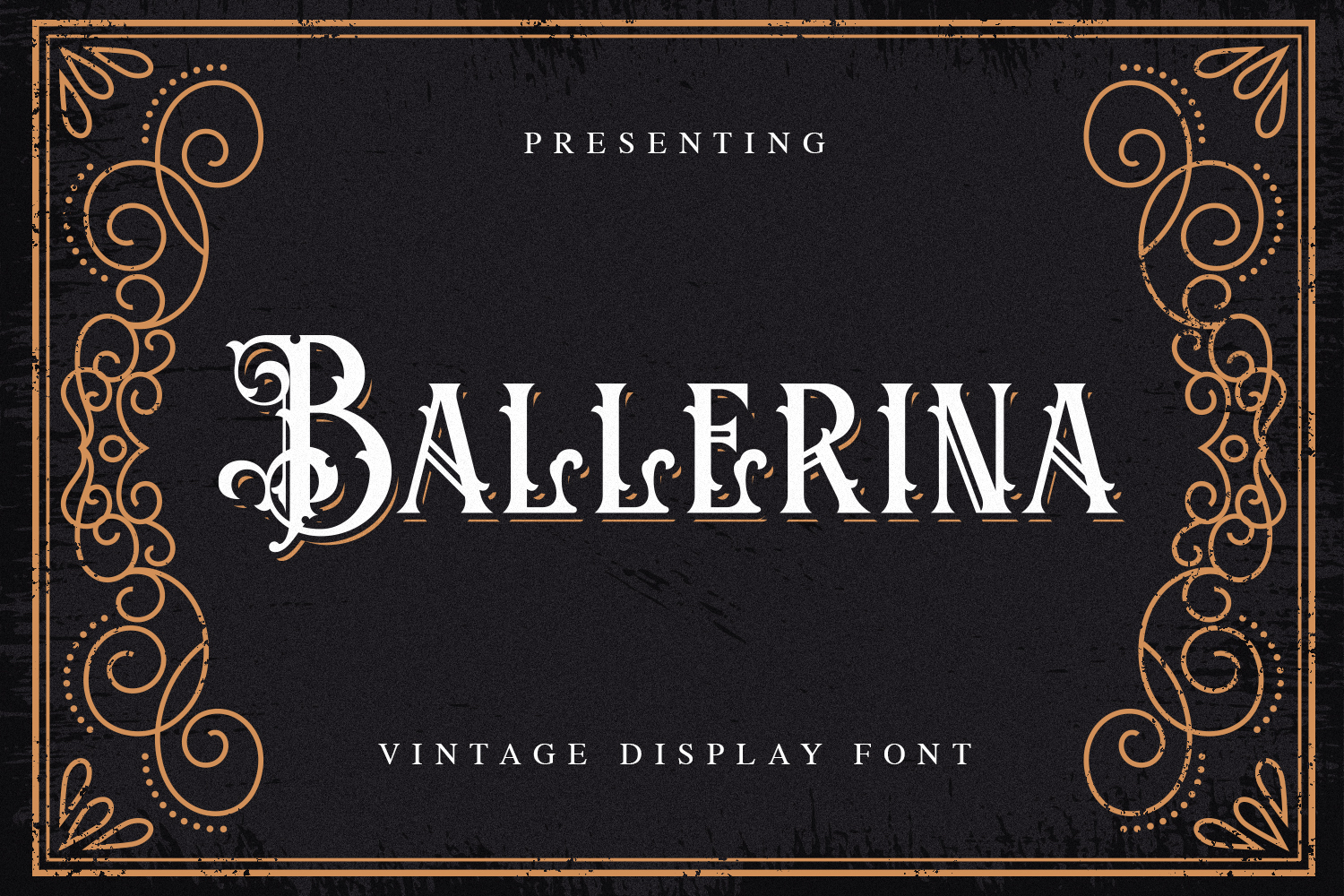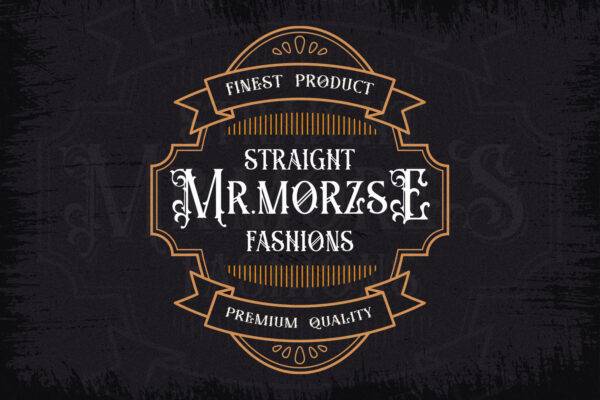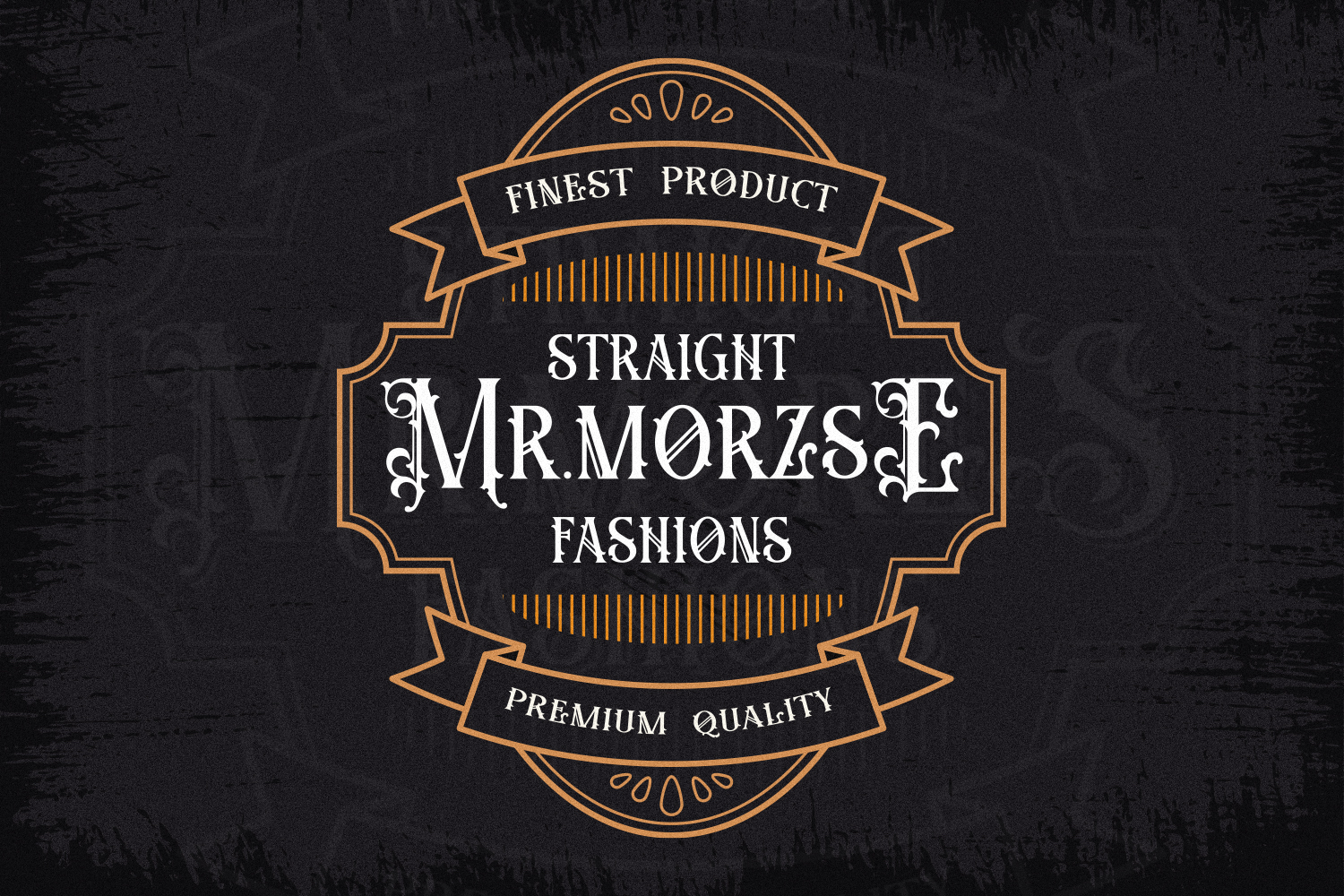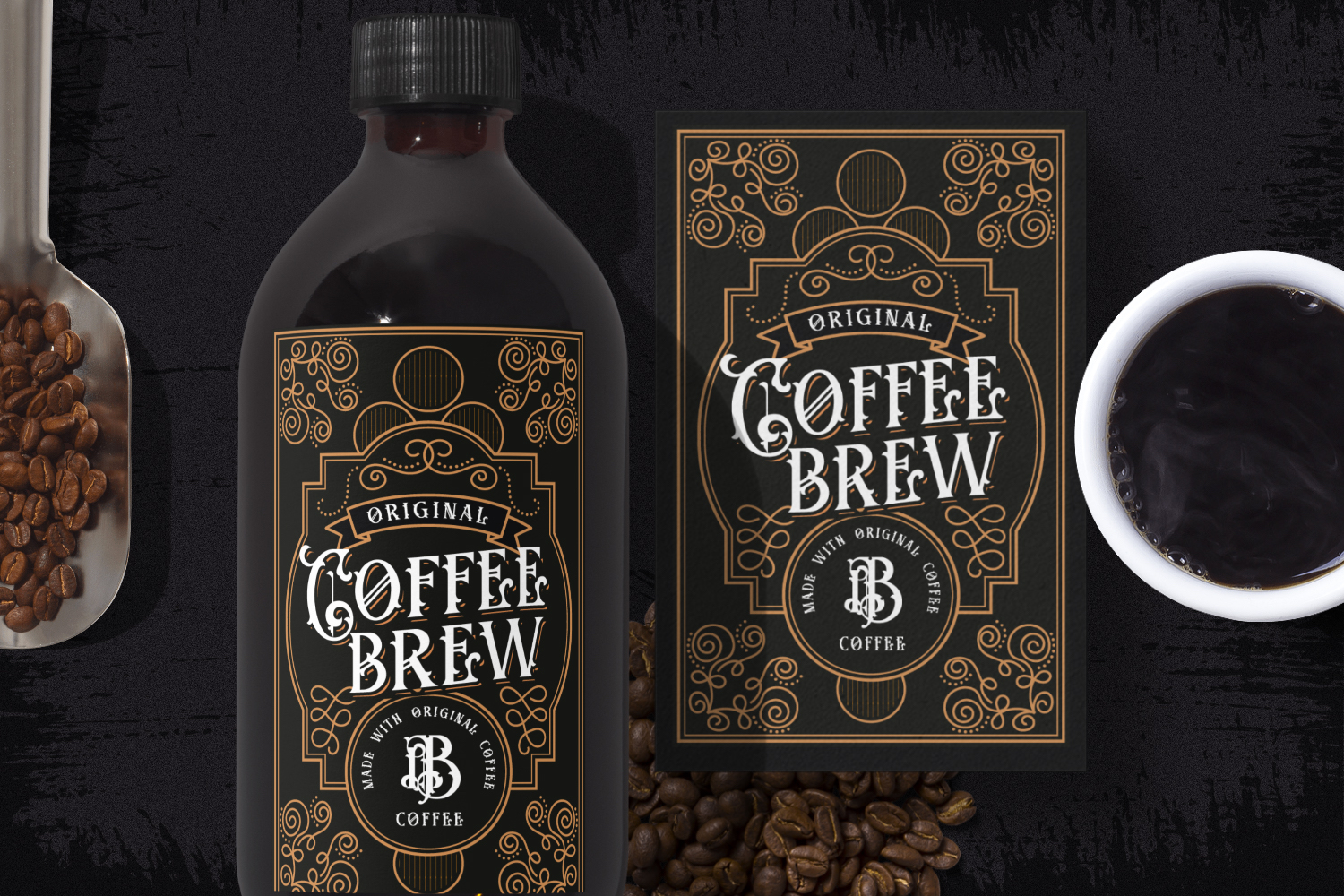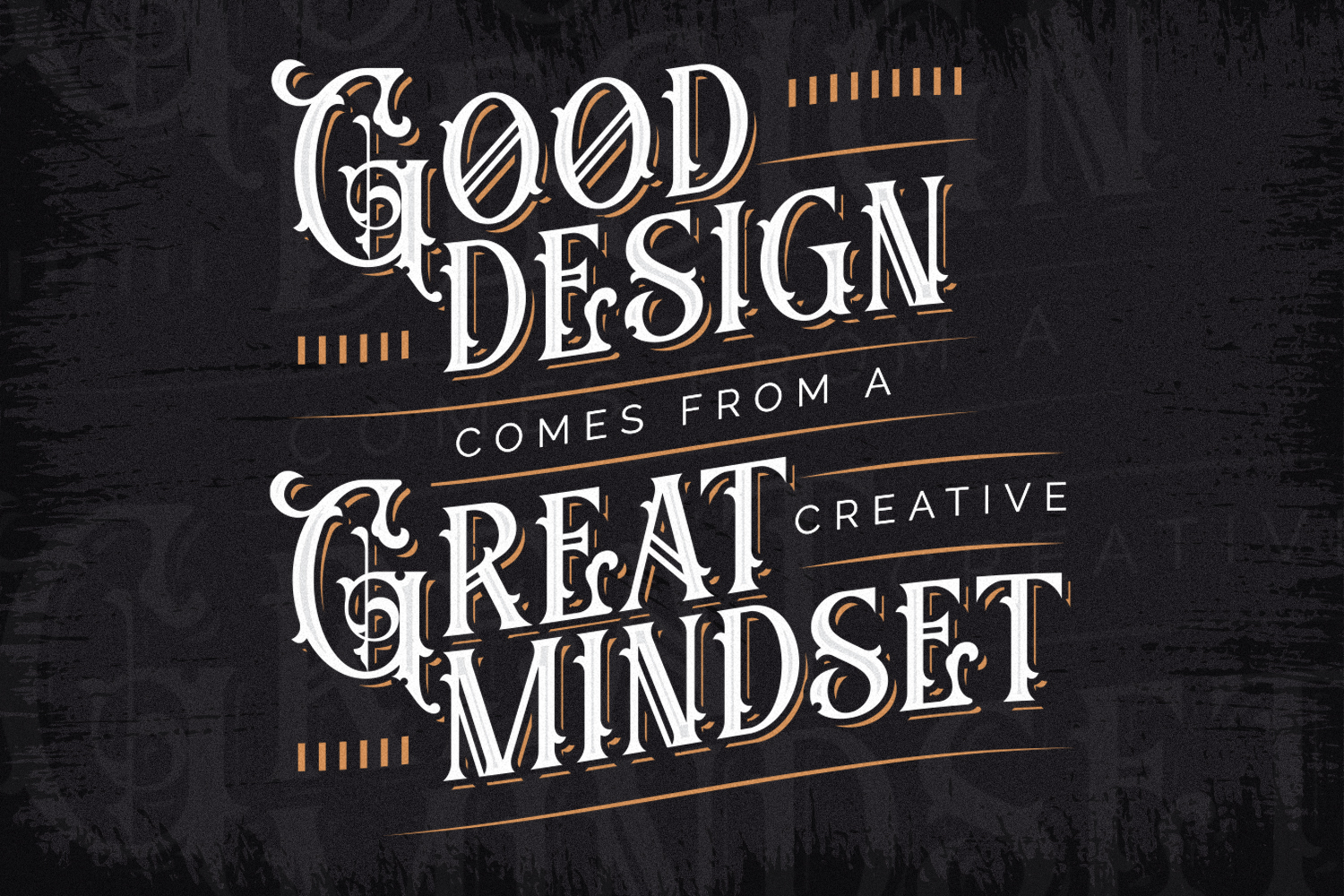
Ballerina is a vintage display font that combines elegance with bold decorative details. Inspired by classic Victorian letterforms and ornamental signage, Ballerina features unique swashes, alternate glyphs, and elaborate character designs that bring a strong sense of style and sophistication to any project.
Ideal for vintage packaging, labels, posters, and editorial titles, Ballerina offers full uppercase and lowercase characters, multilingual support, and extensive punctuation. Its refined curves and ornamental flair make it a great choice for branding projects that need a classy, old-timey aesthetic.
Ballerina